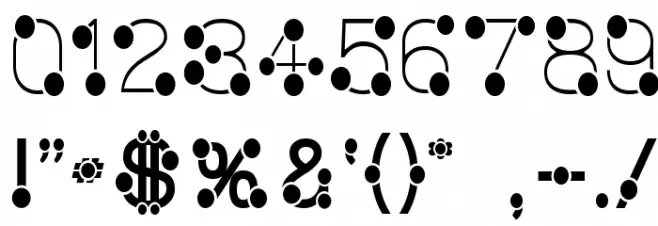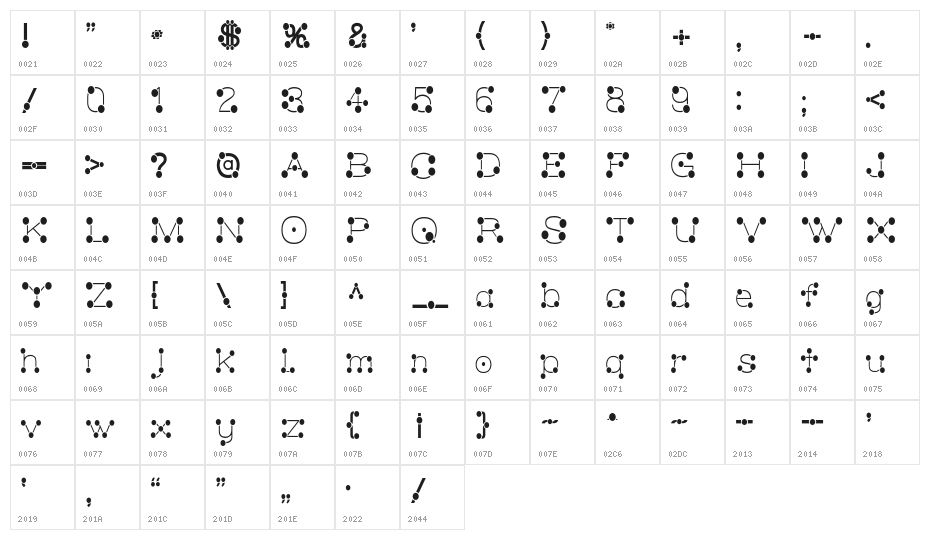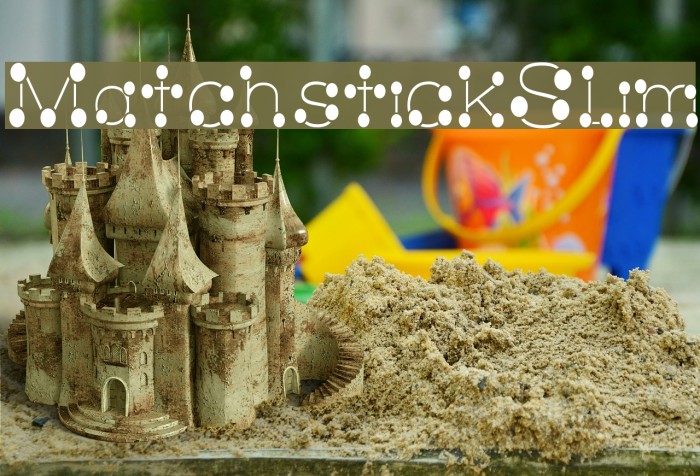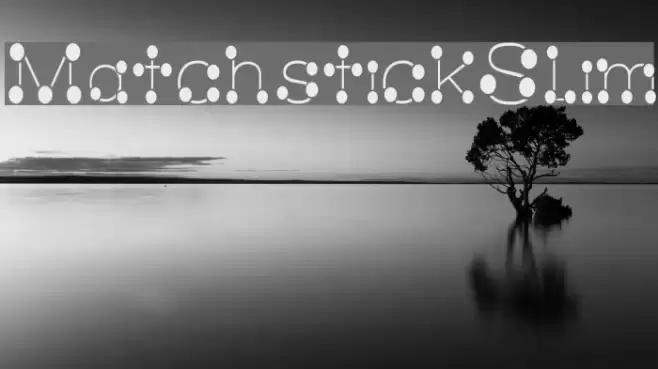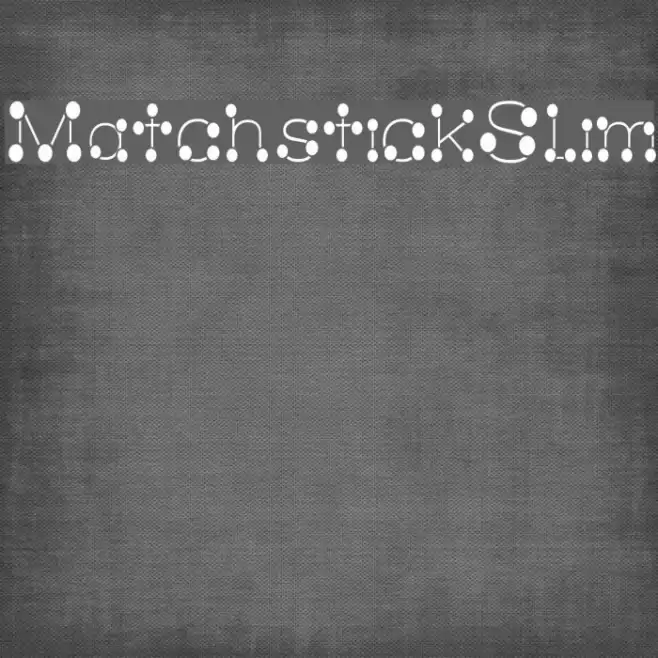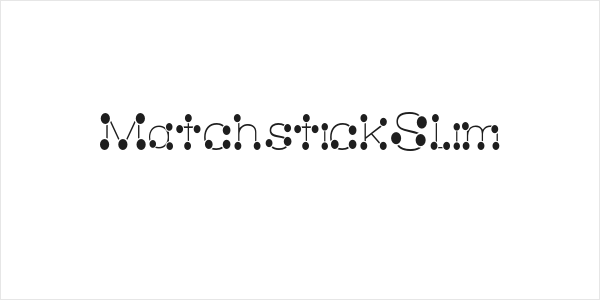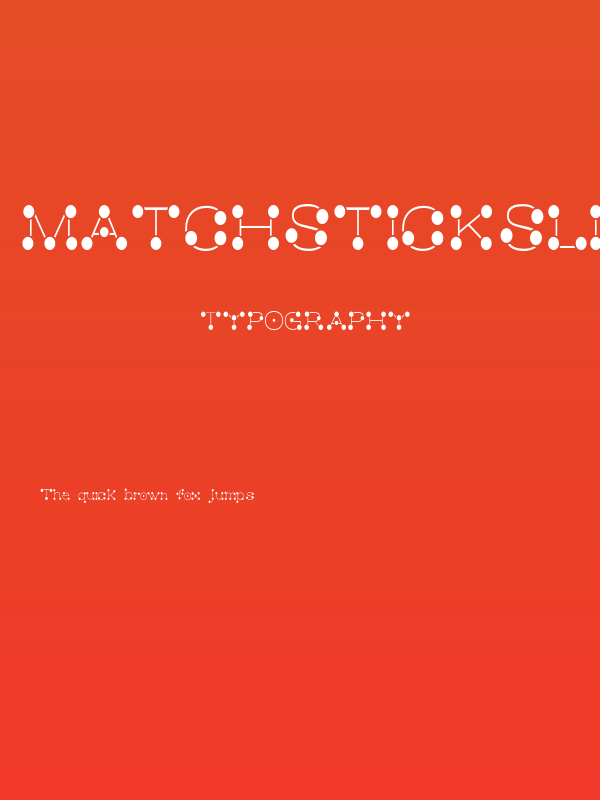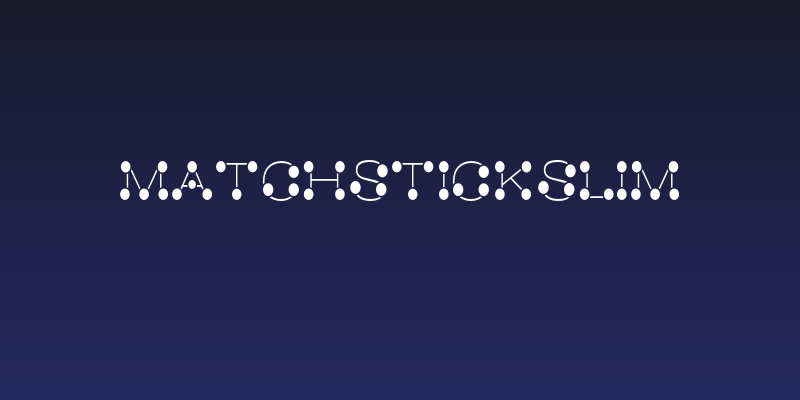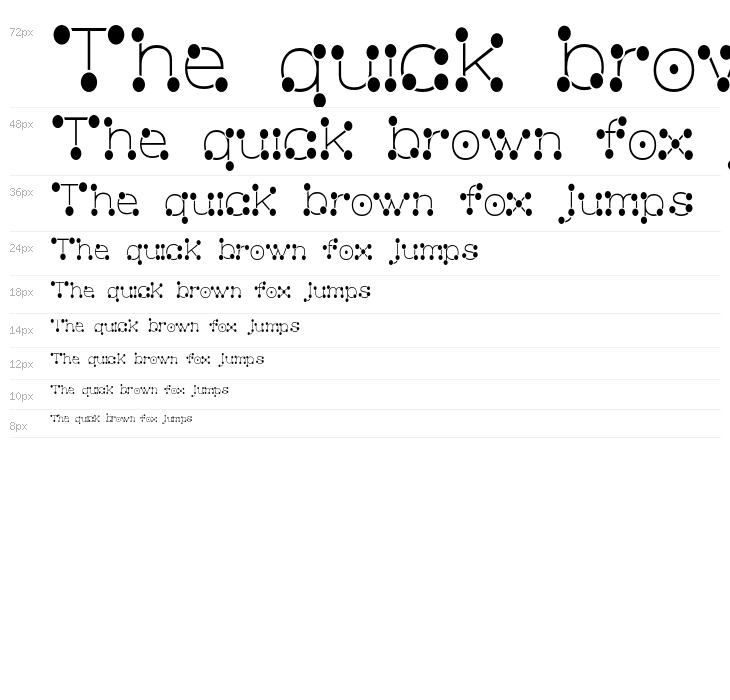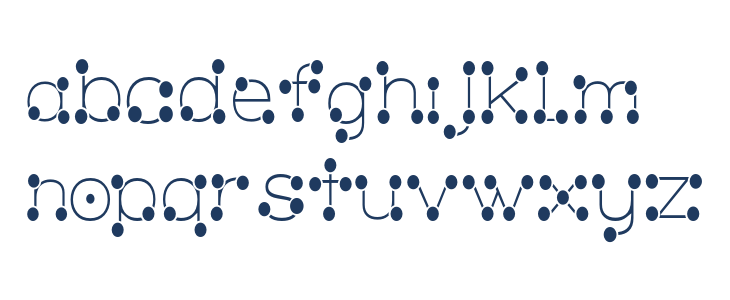
MatchstickSlim Font
MatchstickSlim Description
This font features a unique and playful design, characterized by its use of circular dots and thin lines to form each character. The letters are constructed with a series of dots connected by straight lines, giving it a modern and abstract appearance. The uppercase and lowercase letters maintain a consistent style, with the dots serving as a distinctive element that adds a decorative touch. Numbers and special characters follow the same design principle, ensuring uniformity across the font. This font's creative structure makes it stand out, offering a fresh take on traditional letterforms.
| Use Case | Logos, Posters, Creative projects |
| Proposed Projects | Ideal for creative projects such as posters, logos, and branding materials where a unique and eye-catching font is desired. |